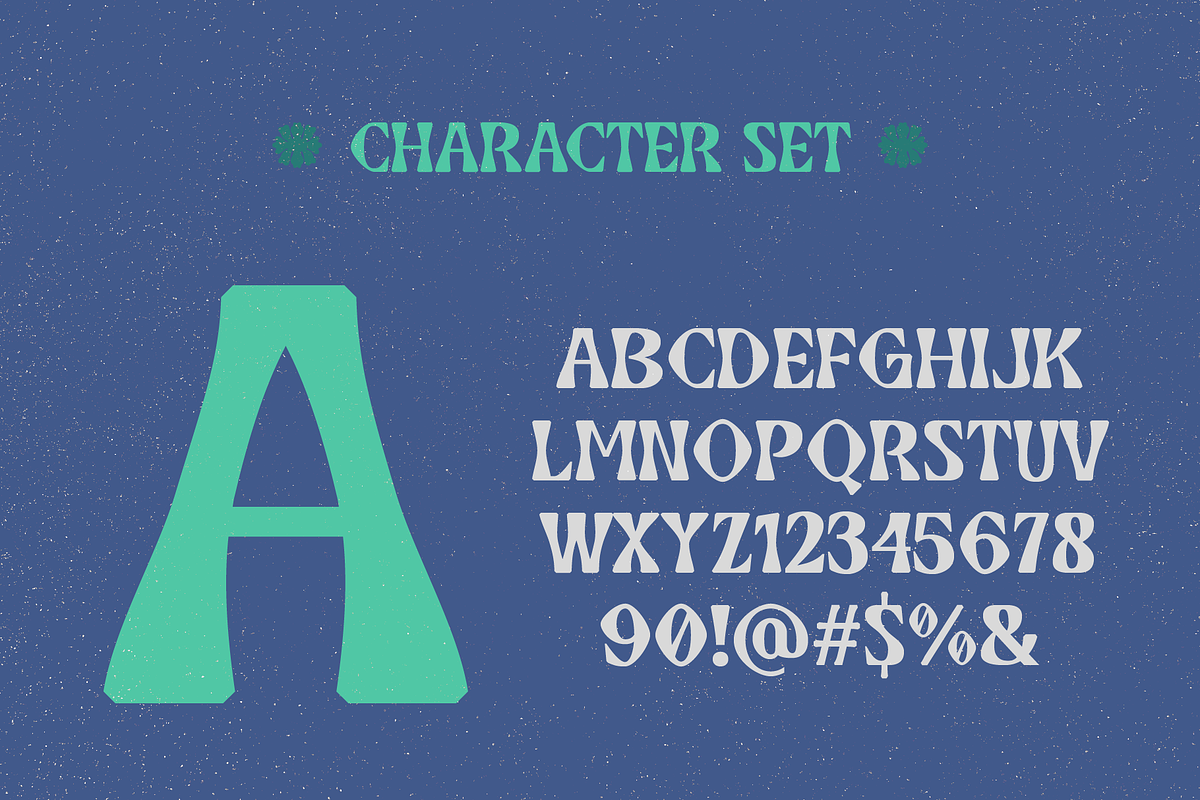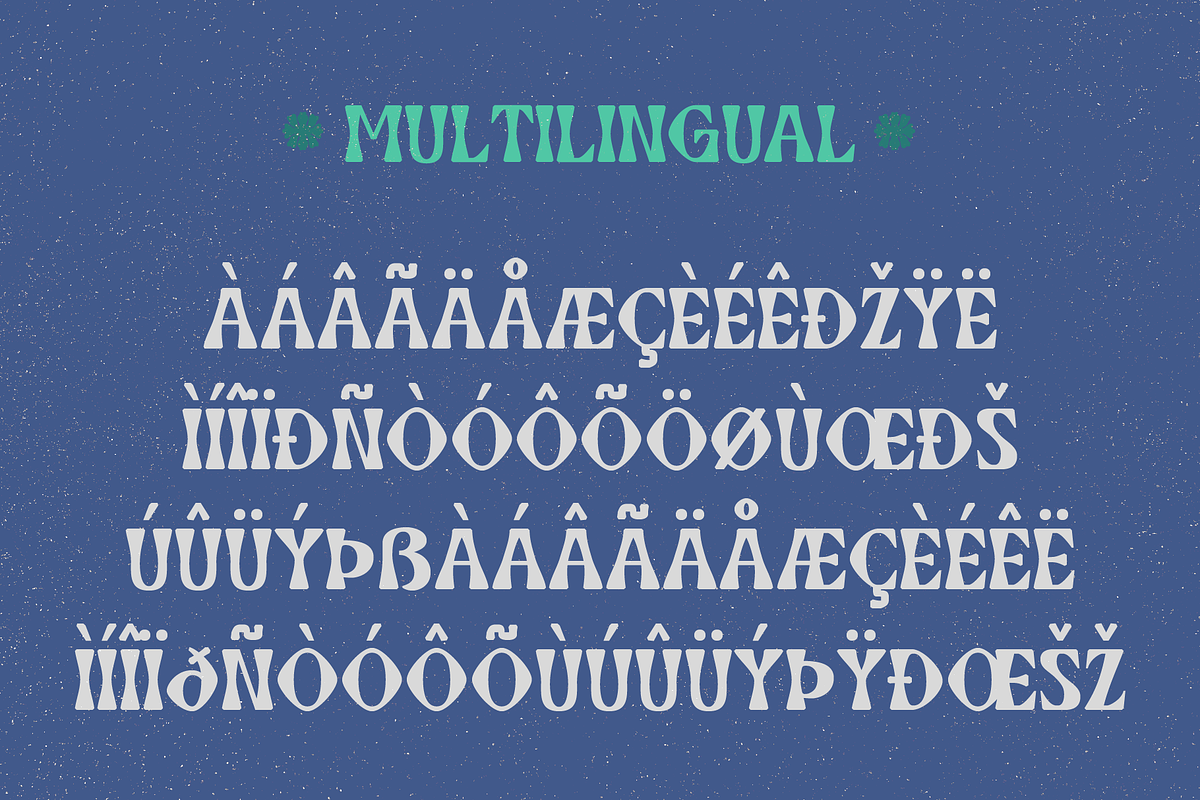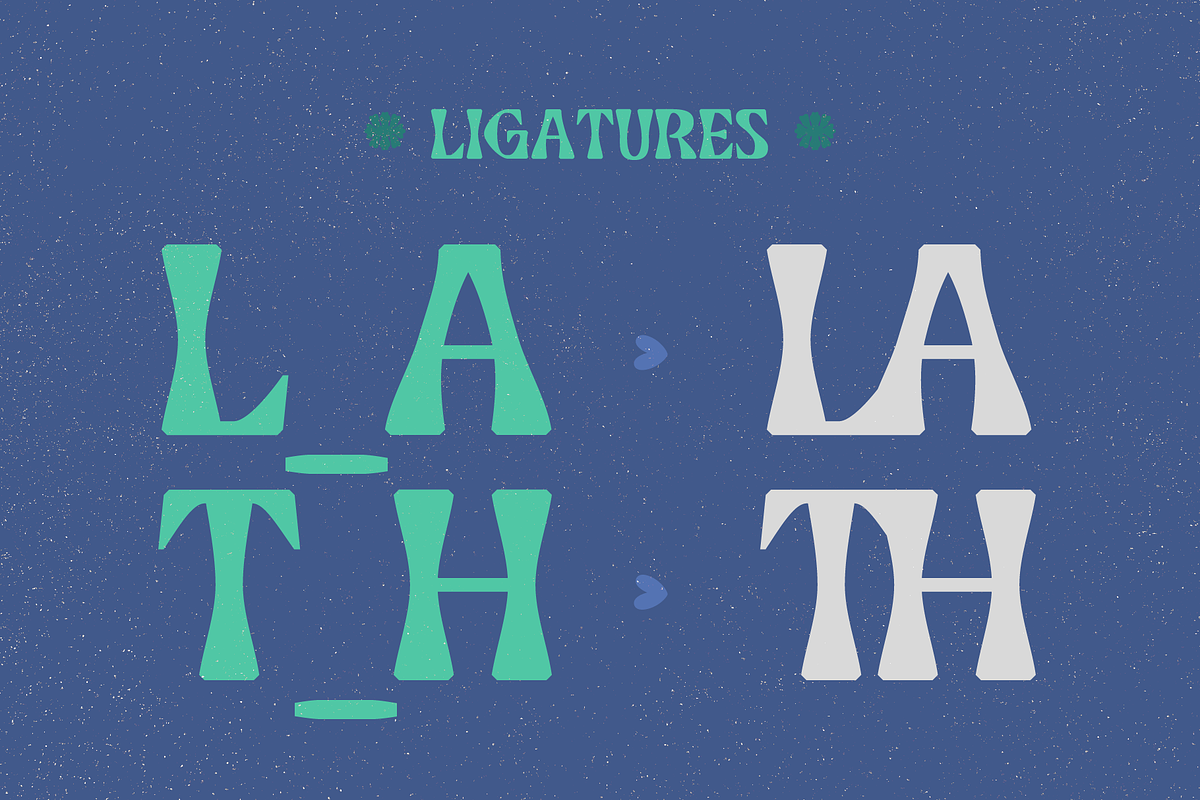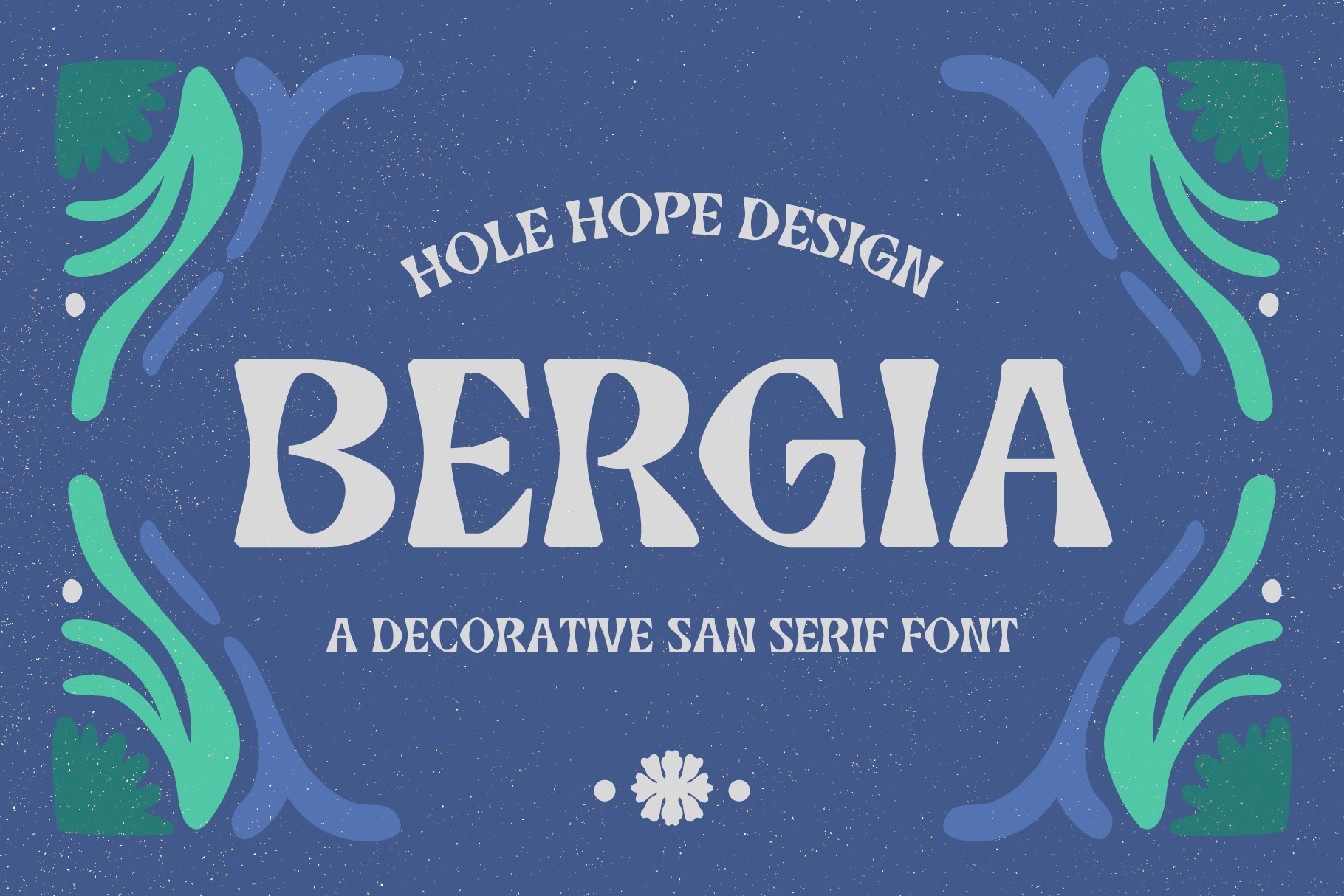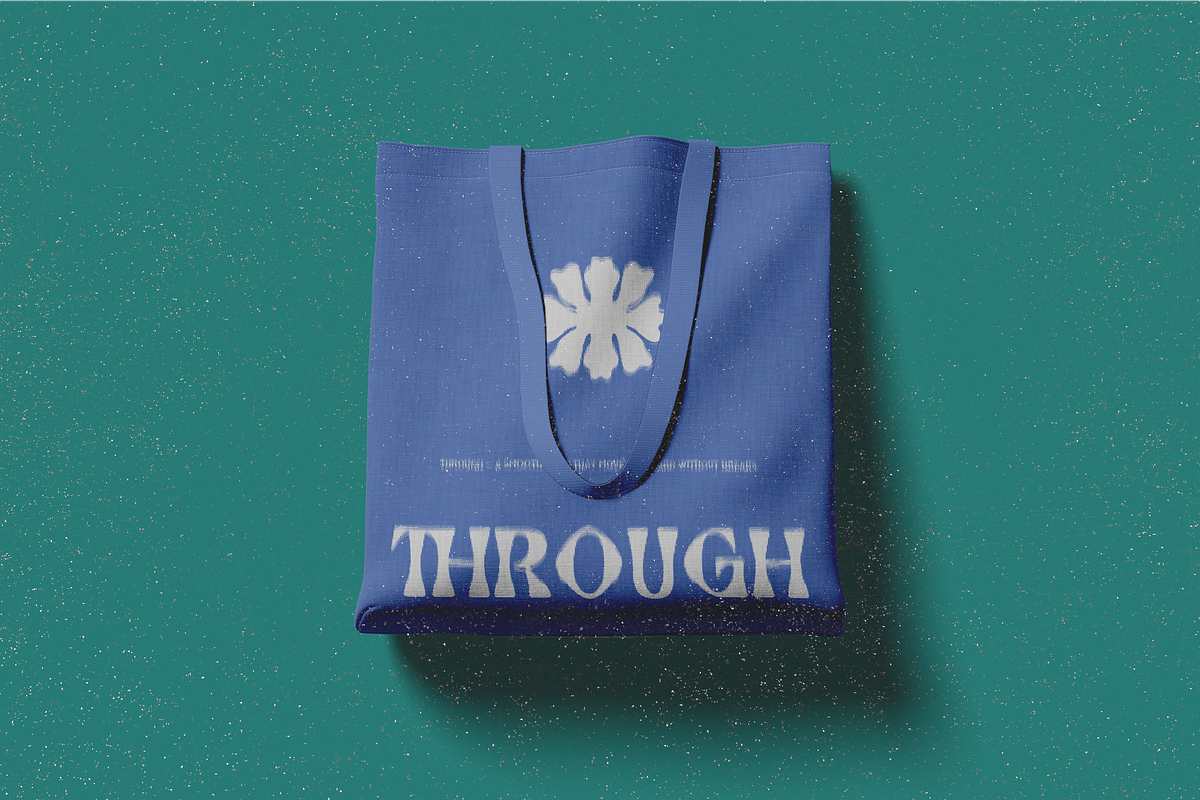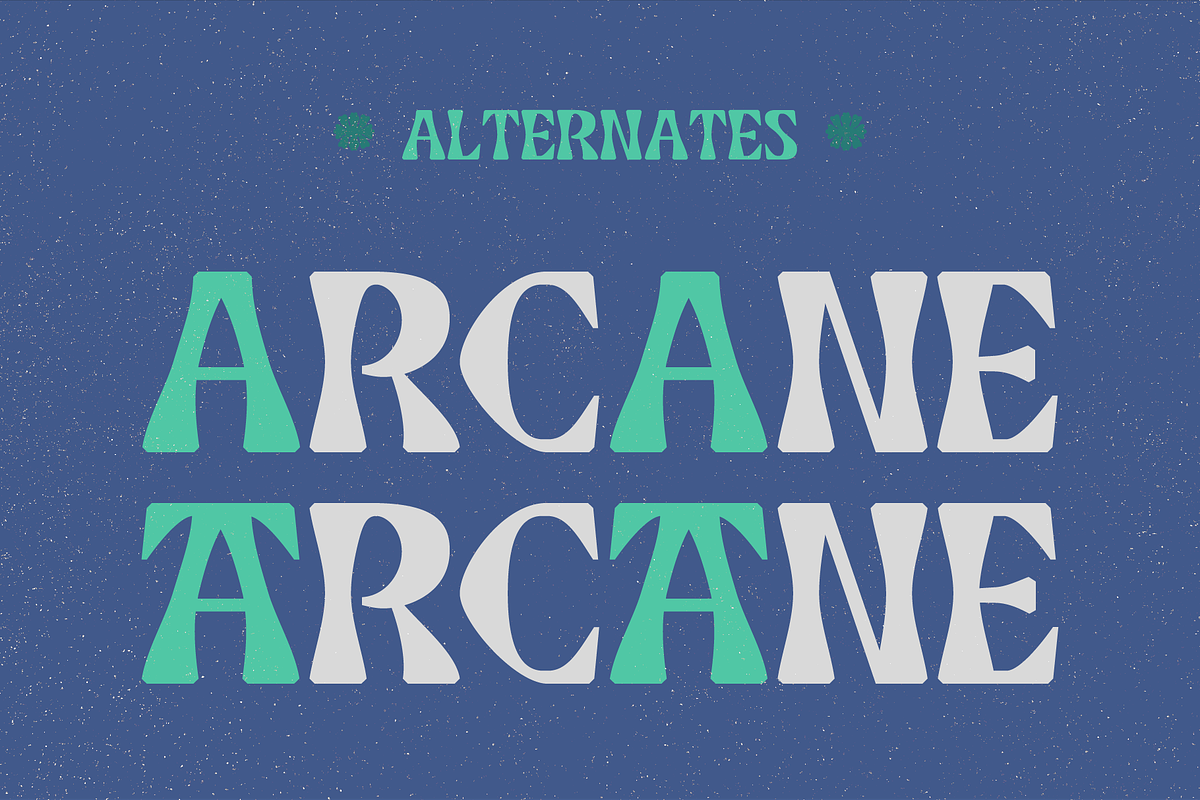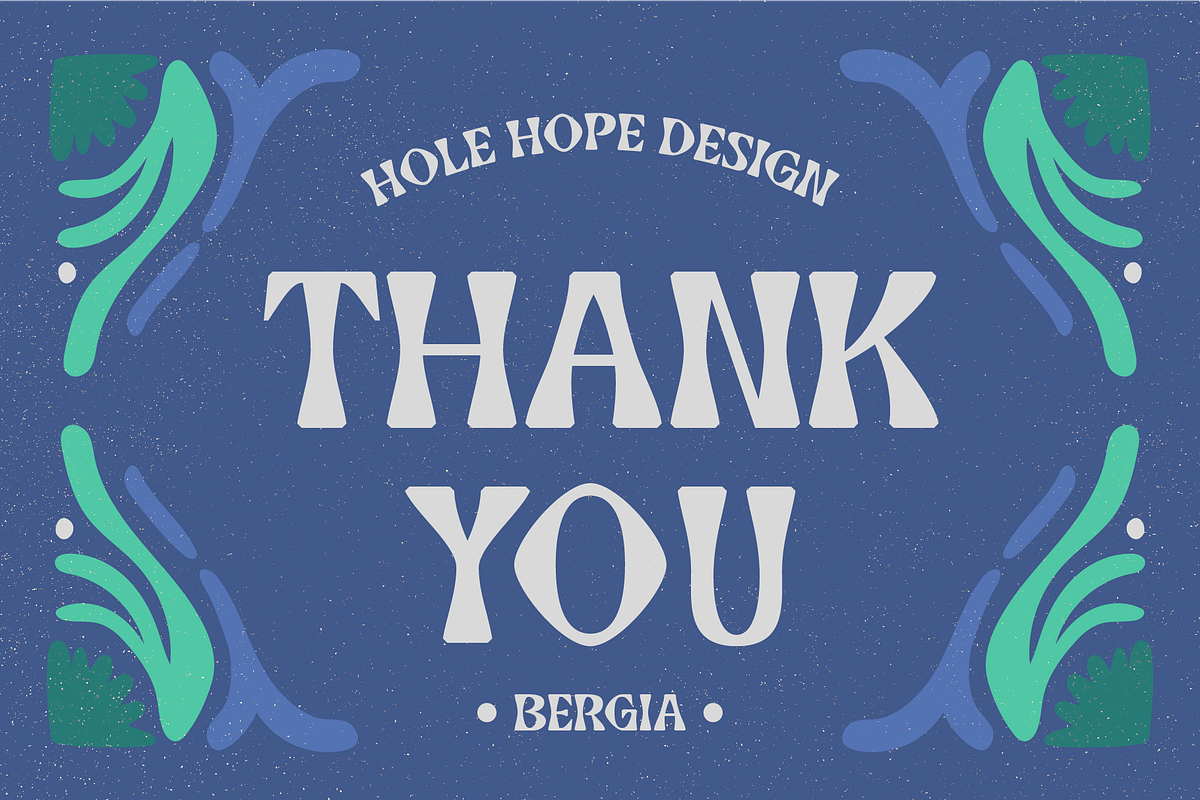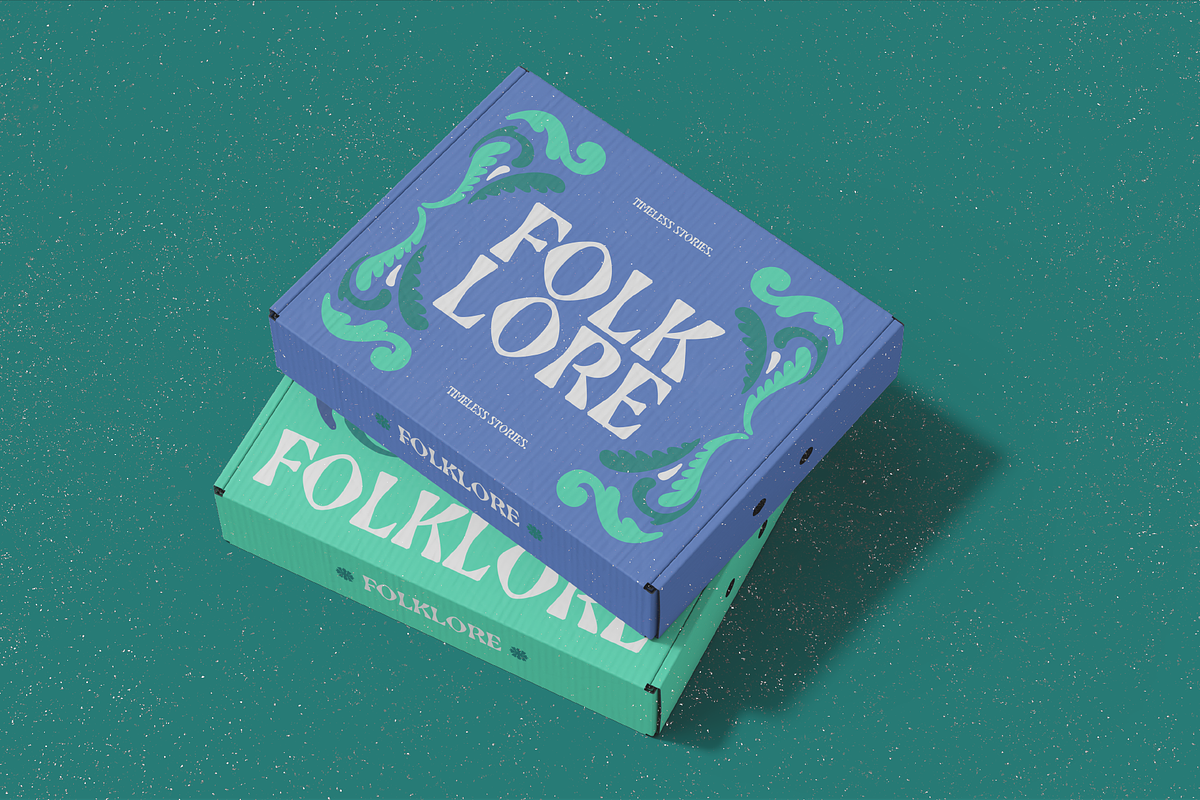
Bergia – Decorative Sans Serif Font
Bergia – Decorative Sans Serif Font is a modern display typeface designed to stand out with style and personality. Featuring bold shapes with decorative touches, Bergia blends clean sans-serif structure with playful character, making it perfect for eye-catching headlines and creative branding.
Bergia – Decorative Sans Serif Font features:
- Character Set
- Punctuation & Numbers